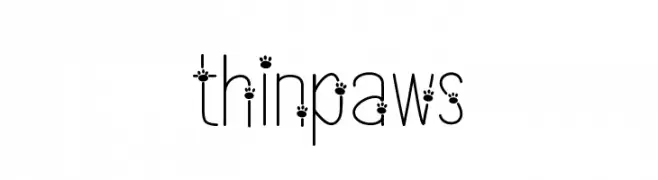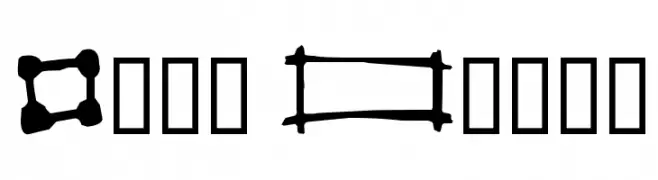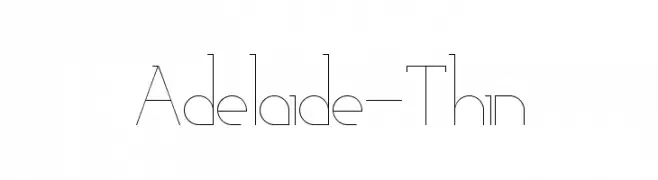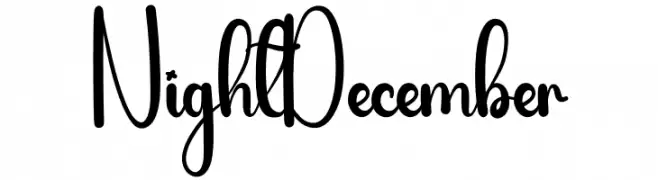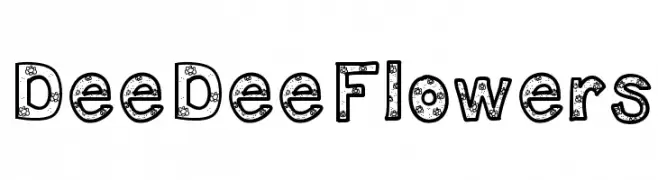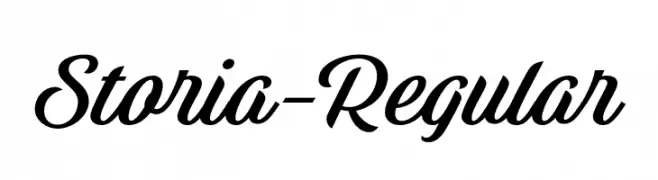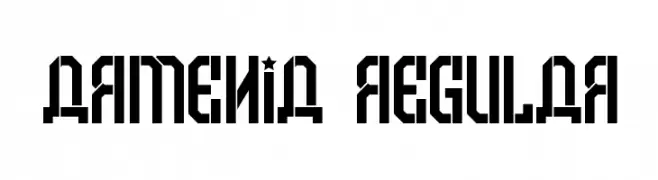
A bold, expanded, and italicized font with a modern, dynamic style.
( Fonts by Sheila Burns )
A playful, paw-embellished font with thin, elongated characters.
( Fonts by Spork Thug Typography - Josh Wilhelm - www.lifewithouttaffy.com/taffy/blog )
A playful, hand-drawn style with abstract box shapes.
( Ryan Williamson )
A modern, ultra-thin font with geometric precision and elegance.
( Fonts by Andi Moz )
Tall, playful handwritten script with consistent stroke width.
( Fonts by D D )
A playful, decorative font with floral patterns inside bold, hand-drawn letters.
A flowing, cursive script font with elegant curves and moderate stroke thickness.
( Vladimir Nikolic - www.coroflot.com/vladimirnikolic )
A bold, geometric font with a modern, stencil-like design.